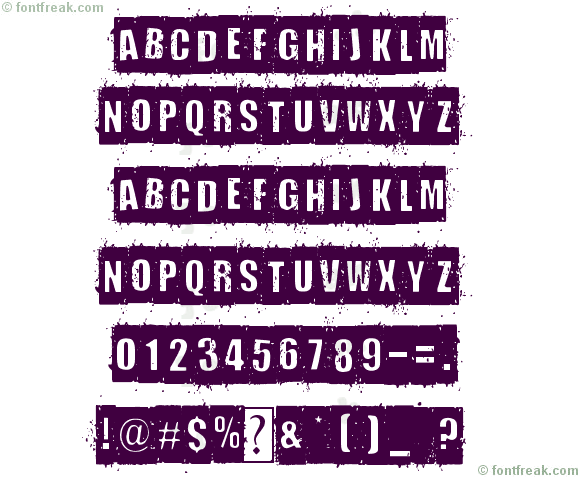
Distort You A Lesson
The "Distort You A Lesson" font by Andrew McCluskey is a striking display typeface that captures attention with its unique aesthetic. This font features a bold, distressed appearance that is both modern and edgy. The irregular stroke weights and rough texture create an eye-catching contrast, making it ideal for projects that require a touch of grit and personality. The spacing is deliberately tight, enhancing the font's compact and robust look, while the decorative elements give it a handmade feel that sets it apart from more conventional typefaces.
This font is exceptionally versatile, making it suitable for various use cases. Designers can effectively use "Distort You A Lesson" in music album covers, where its bold character can convey a sense of energy and passion. It also works well for streetwear branding, giving logos a contemporary and urban vibe. Additionally, this typeface is perfect for posters promoting events, as its dramatic style draws the eye and communicates excitement. Furthermore, it can add a unique flair to social media graphics, helping content creators stand out in crowded feeds.